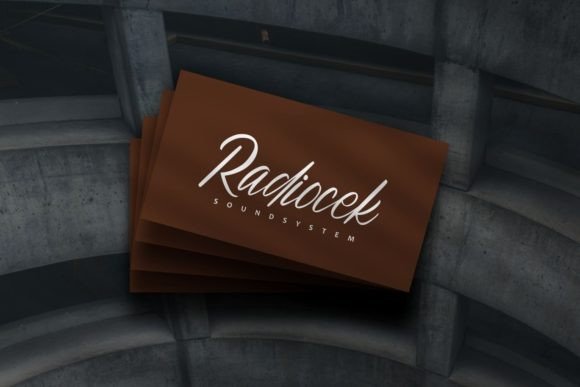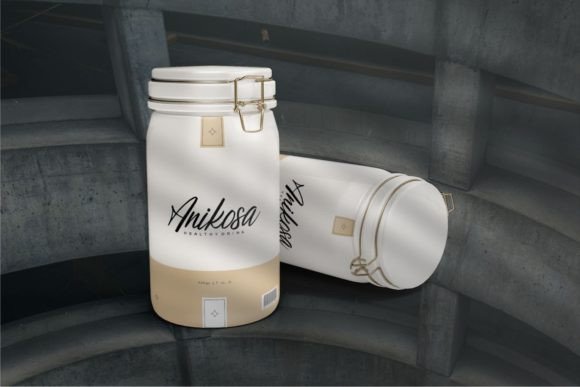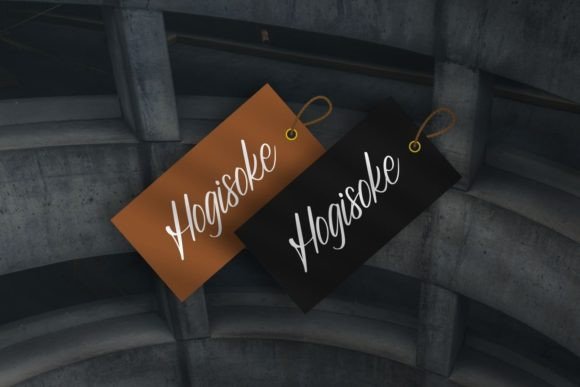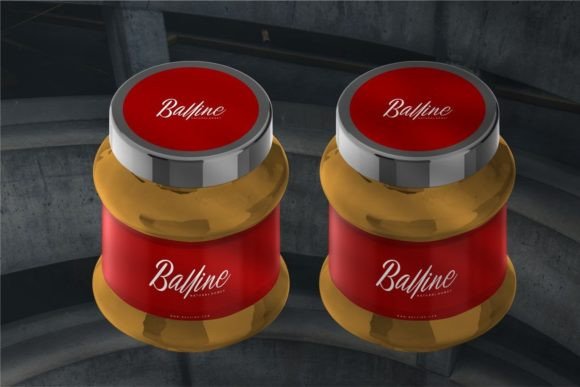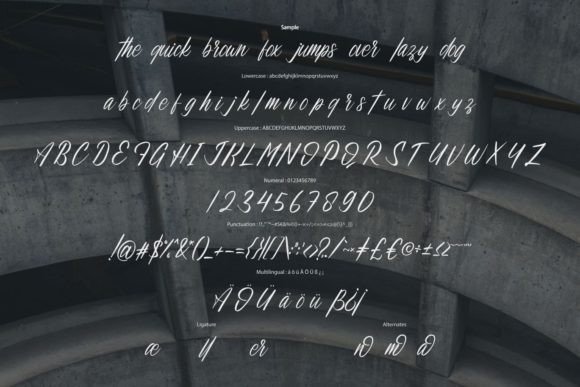
Introducing Hallimon Font: Elevate Your Designs with Elegance and Sophistication
In the world of typography, a font can make or break a design. For designers and crafters looking for a modern script font that exudes elegance and sophistication, Hallimon Font is an excellent choice. With its beautiful calligraphy style, Hallimon is perfect for a wide range of design projects, from invitations and greeting cards to branding materials, business cards, quotes, posters, and more.
What Makes Hallimon Font Stand Out?
Hallimon Font is a modern script font that boasts a unique blend of classic calligraphy and contemporary style. Its elegant and flowing lines make it perfect for designs that require a touch of sophistication and glamour. Here are some key features that make Hallimon Font stand out:
- Beautiful Calligraphy Style: Hallimon Font features a stunning calligraphy style that adds a touch of elegance to any design.
- Modern and Fresh: Despite its classic inspiration, Hallimon Font has a modern and fresh feel that makes it perfect for contemporary designs.
- Highly Versatile: Hallimon Font can be used for a wide range of design projects, from digital designs to print materials.
- Easy to Read: Despite its elegant and cursive style, Hallimon Font is easy to read, making it perfect for designs that require a clear and concise message.
Uses for Hallimon Font
Hallimon Font is an incredibly versatile font that can be used for a wide range of design projects. Here are some ideas to get you started:
- Invitations: Whether you’re planning a wedding, birthday party, or baby shower, Hallimon Font is perfect for creating beautiful and elegant invitations.
- Greeting Cards: Add a touch of sophistication to your greeting cards with Hallimon Font, perfect for special occasions like holidays, birthdays, and anniversaries.
- Branding Materials: Use Hallimon Font to create stunning branding materials, such as logos, business cards, and letterheads, that reflect your brand’s elegance and sophistication.
- Quotes and Posters: Hallimon Font is perfect for creating inspiring quotes and posters that make a statement.
- Business Cards: Stand out from the crowd with Hallimon Font on your business cards, perfect for entrepreneurs, freelancers, and small business owners.
- Pair with a Simple Font: Pair Hallimon Font with a simple font to create a beautiful contrast and make your design stand out.
- Use for Headlines and Titles: Use Hallimon Font for headlines and titles to add a touch of elegance and sophistication to your design.
- Experiment with Colors: Experiment with different colors to find the perfect combination that complements Hallimon Font.
- Keep it Simple: Don’t overcomplicate your design. Keep it simple and let Hallimon Font shine.
In conclusion, Hallimon Font is a stunning modern script font that is perfect for designers and crafters looking to add a touch of elegance and sophistication to their designs. With its beautiful calligraphy style, versatility, and ease of use, Hallimon Font is an excellent choice for a wide range of design projects. Whether you’re creating invitations, greeting cards, branding materials, or posters, Hallimon Font is sure to make your design stand out.